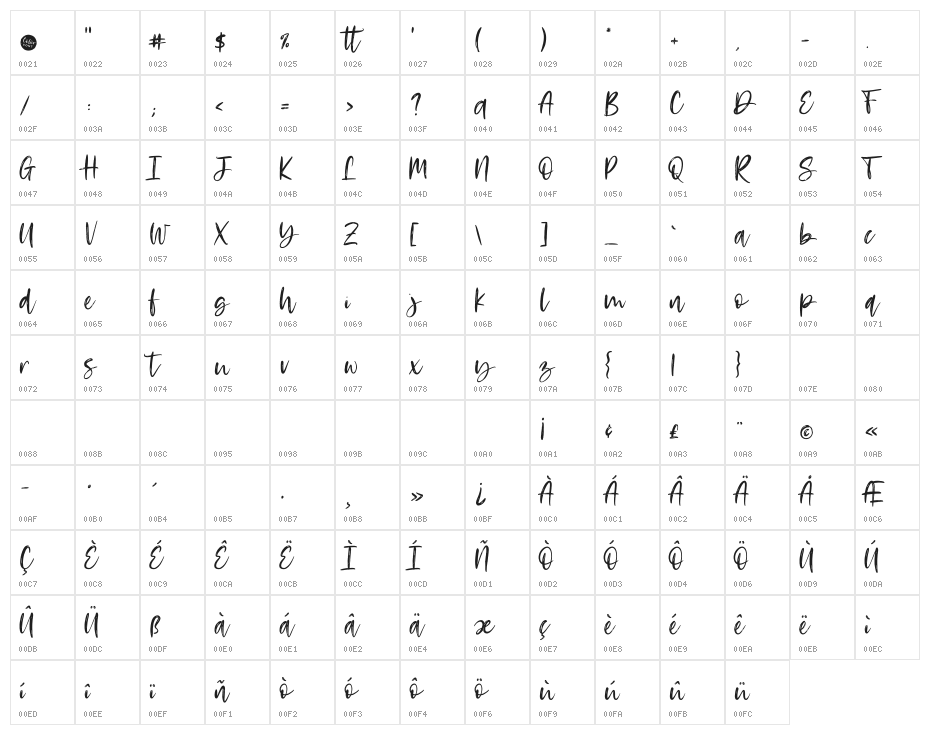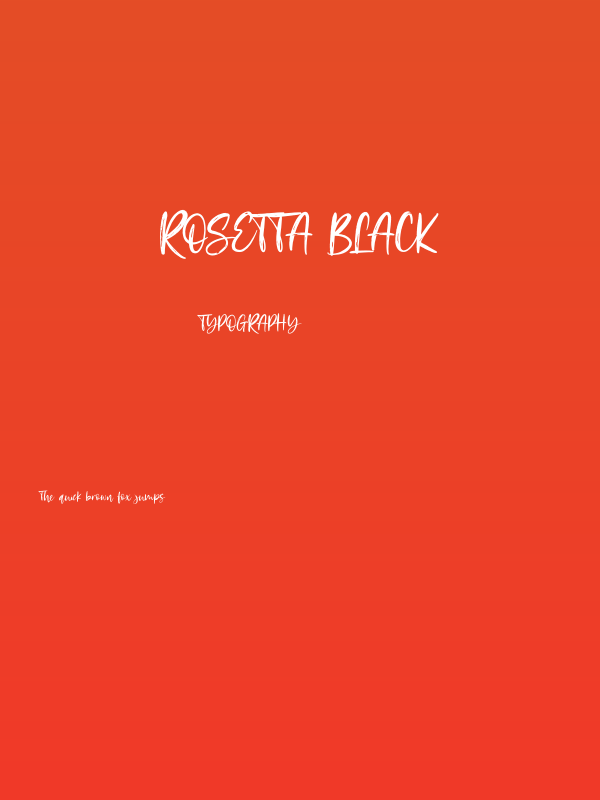
Rosetta Black Font
Rosetta Black Description
This font features a bold and expressive handwritten style with a dynamic and energetic appearance. The characters are crafted with a brush-like texture, giving them a lively and artistic feel. The uppercase and lowercase letters maintain a consistent flow, while the numbers and special characters complement the overall design. The strokes are varied in thickness, adding a sense of movement and personality. This font is ideal for projects that require a personal touch or a creative flair.
| Proposed Projects | Perfect for branding, invitations, social media graphics, and artistic projects. |